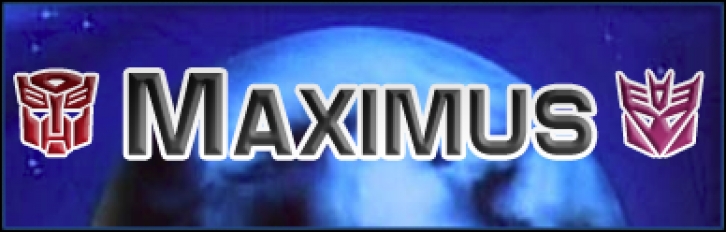
This technologically-built typeface is based on some older Hasrbo "Transformers" toy lettering, particularly during the Headmaster and Masterforce years. Left and right braces have been replaced with Autobot and Decepticon symbols, respectively. Includes bold, italic, and condensed versions.